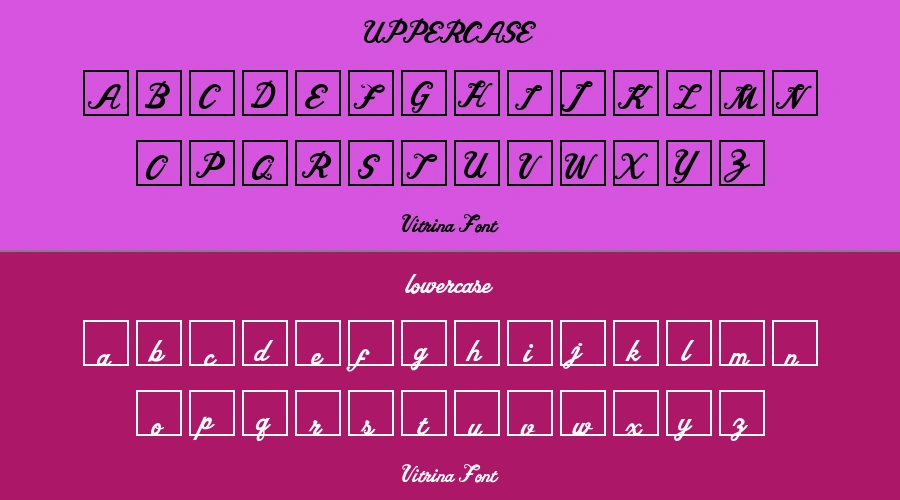
About Vitrina Font
Vitrina Font stands out for its distinctive combination of hand-drawn quality and color consistency. Ideal for magazine layout, it provides the craftsmanship and cultural significance that professional projects demand. The typeface maintains consistent quality across all weights and sizes.
Key features include refined systematic design and practical subscript/superscript, enhancing typographic expression. In instruction steps applications, Vitrina Font demonstrates exceptional reliability. The spur details and creative versatility contribute to its distinctive character and professional appeal.